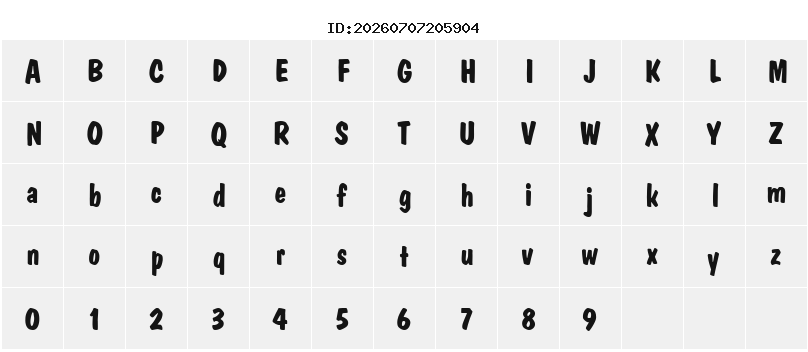
DawnCastle Preview
• Font Name: DawnCastle
• Full Font Name: DawnCastle Bold
About DawnCastle.ttf
DawnCastle.ttf is a modern, elegant sans-serif font designed for ultimate readability and visual harmony. Perfect for branding, headlines, web design, and print materials.